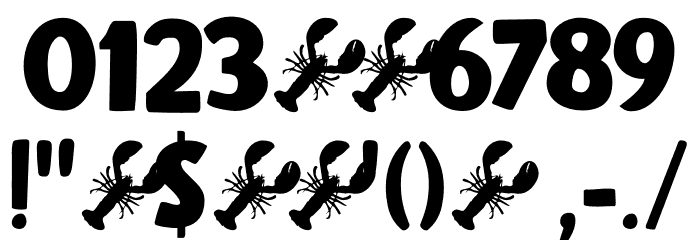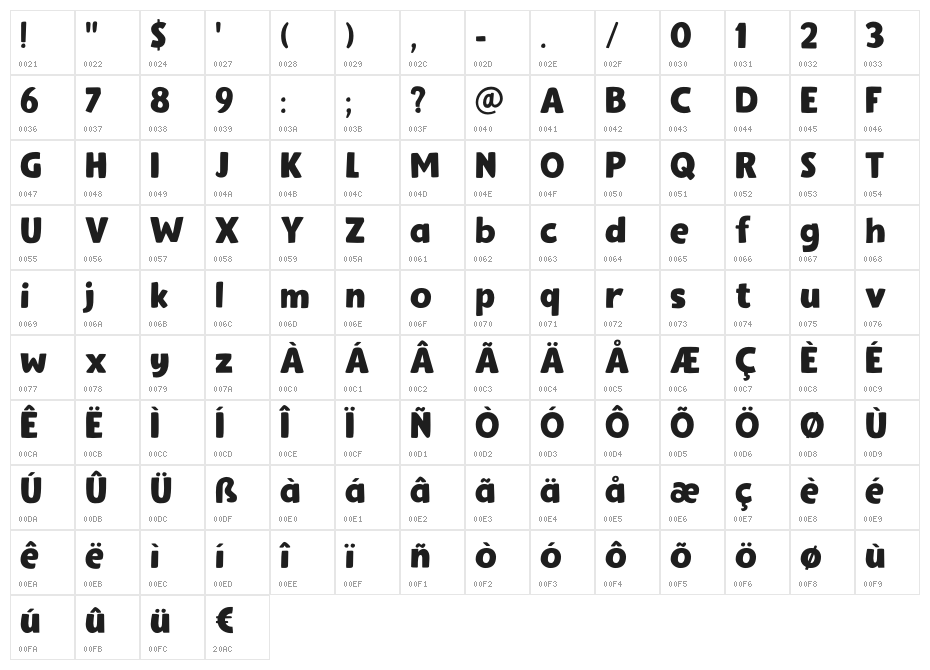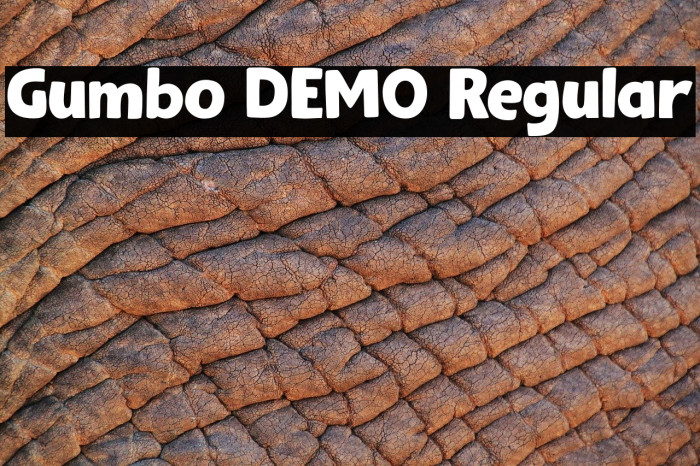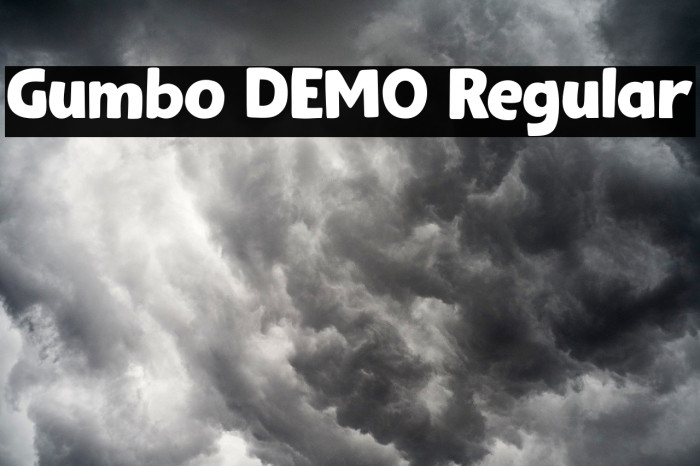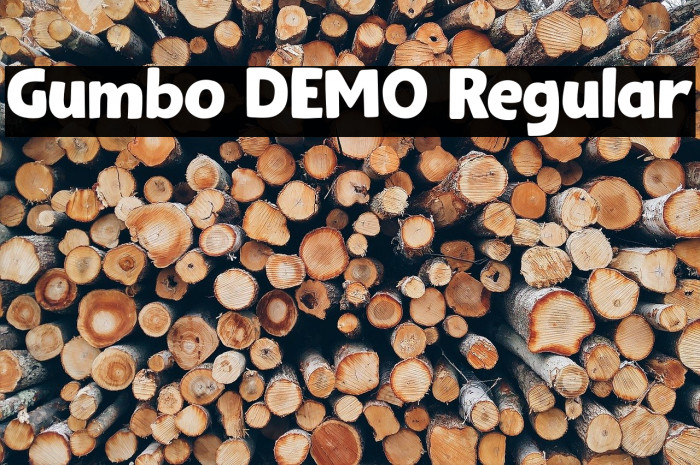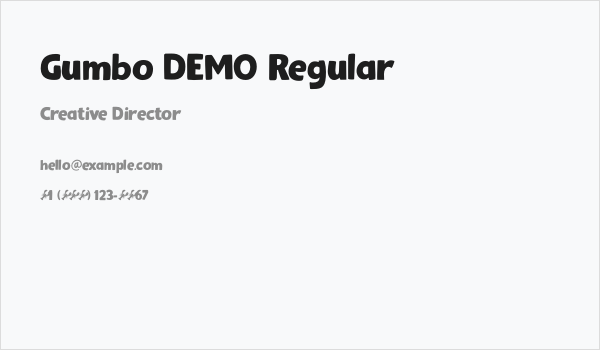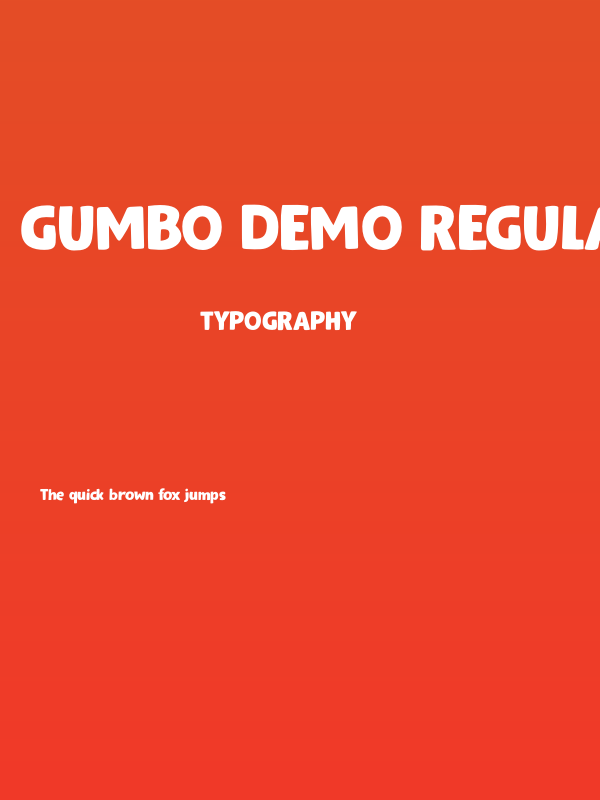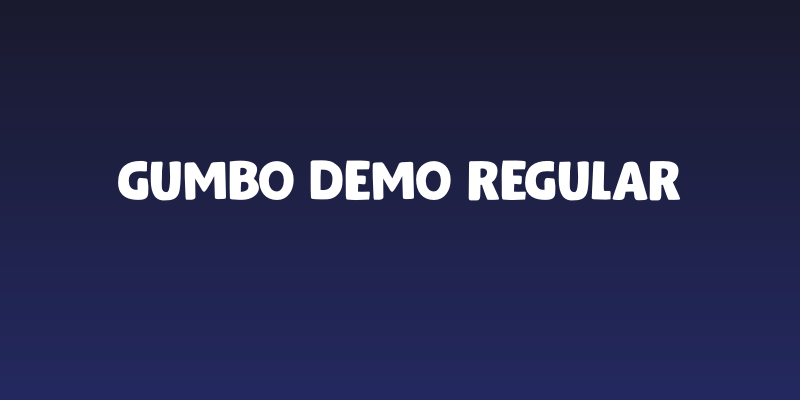
Gumbo DEMO Regular Font
Gumbo DEMO Regular Description
This playful and bold font features a unique, rounded style with a whimsical touch. The characters are thick and slightly irregular, giving them a hand-drawn appearance that adds a sense of fun and creativity. The uppercase and lowercase letters maintain a consistent weight, while the numbers and special characters, including quirky lobster icons, add to the font's distinctive charm. The overall design is eye-catching and suitable for projects that require a lively and informal feel.
| Proposed Projects | Ideal for children's books, playful branding, event posters, and creative social media graphics. |